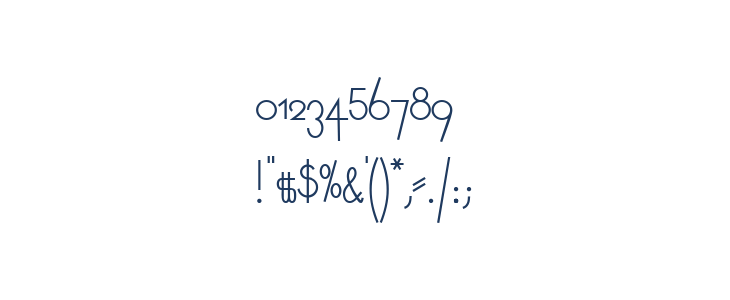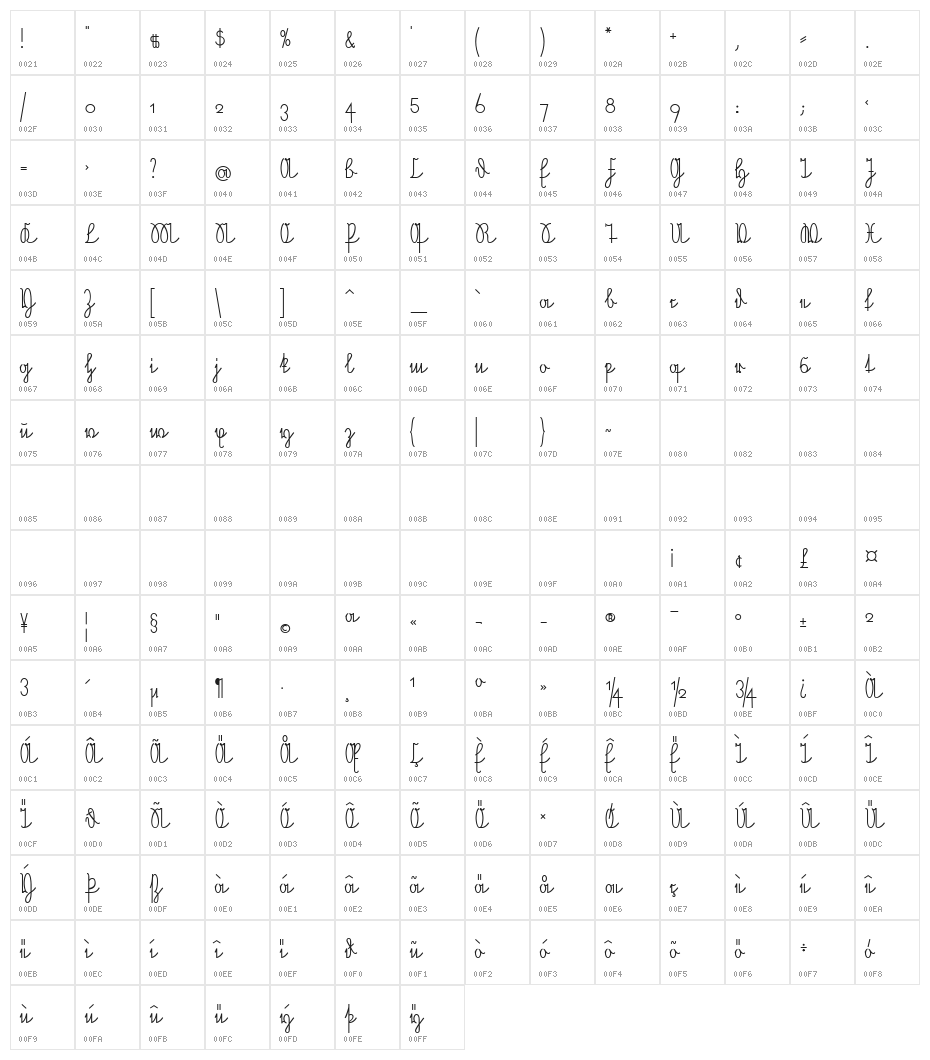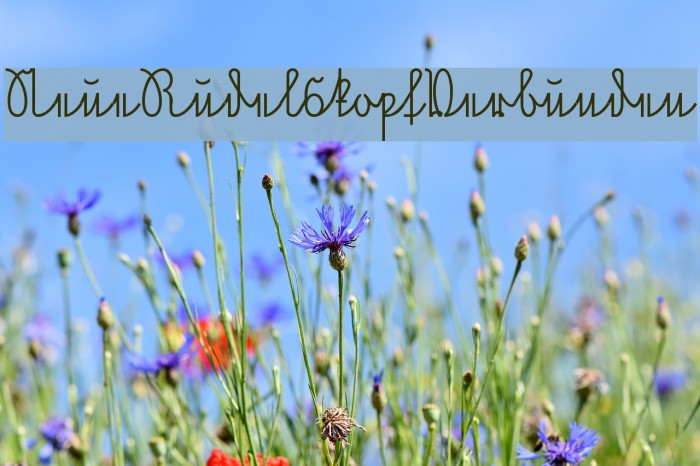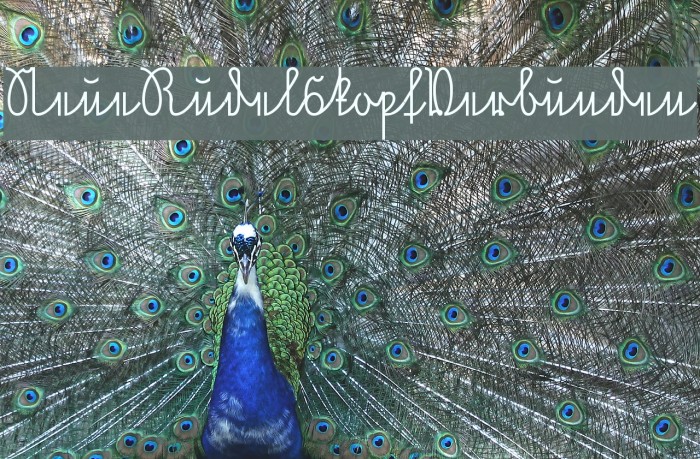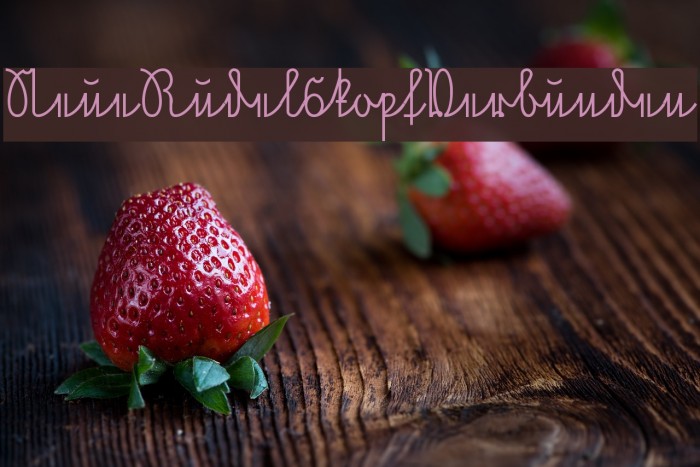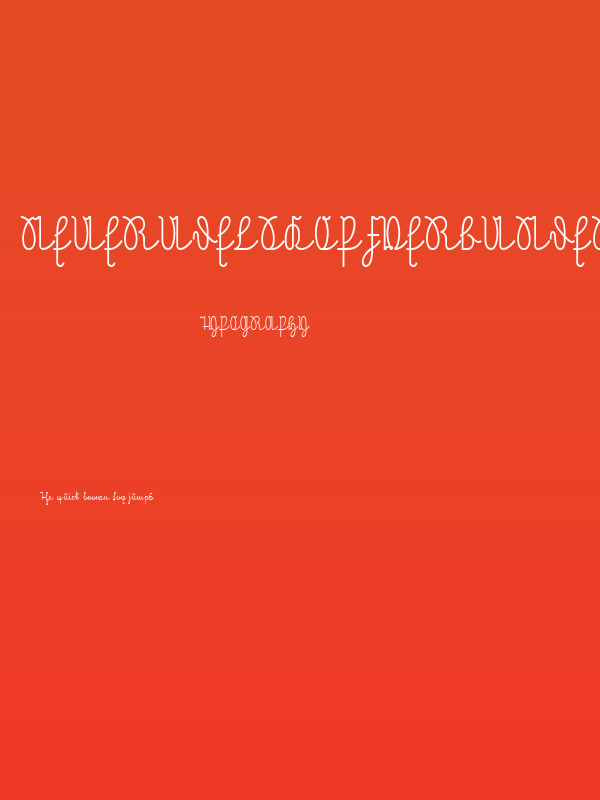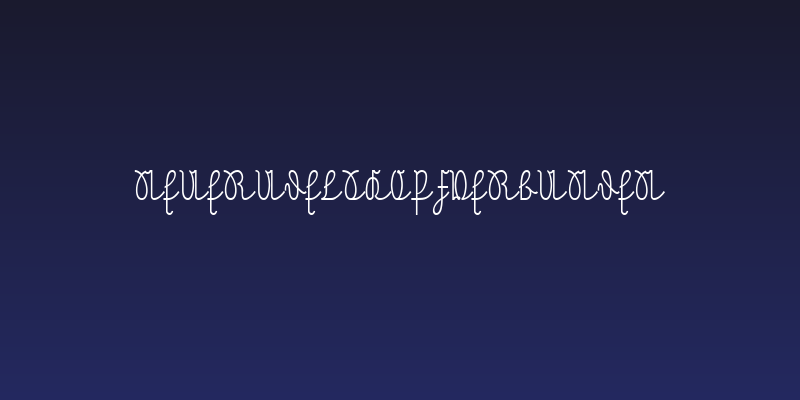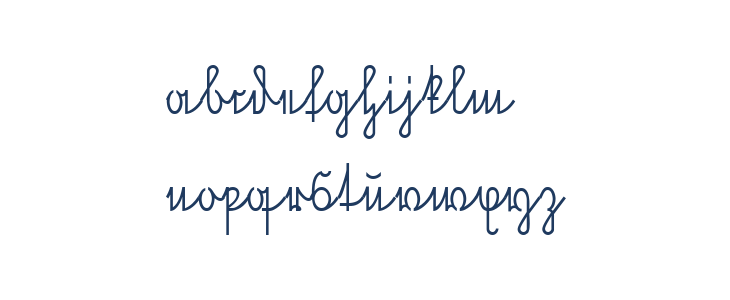
NeueRudelskopfVerbunden Font
NeueRudelskopfVerbunden Description
This font features a unique, flowing script style with an elegant and sophisticated appearance. The characters are interconnected, creating a seamless and continuous look. The uppercase letters have a distinct looped design, while the lowercase letters maintain a consistent flow, enhancing readability. The numerals and special characters are designed to match the overall aesthetic, with a graceful and artistic flair. This font is ideal for projects that require a touch of elegance and creativity, making it suitable for invitations, branding, and decorative purposes.
| Overall Style | Elegant, Artistic |
| Use Case | Invitations, Branding, Decorative |
| Proposed Projects | Ideal for wedding invitations, branding, decorative projects, and artistic designs. |